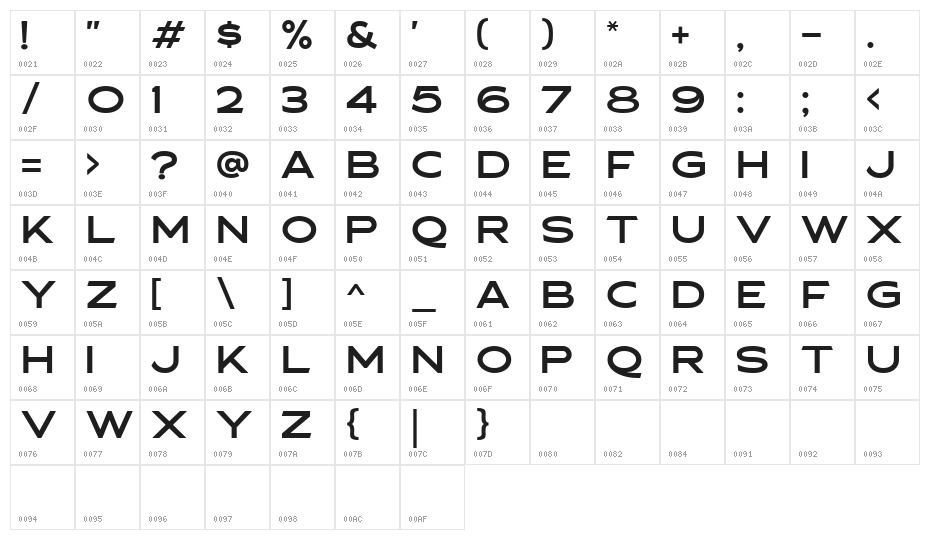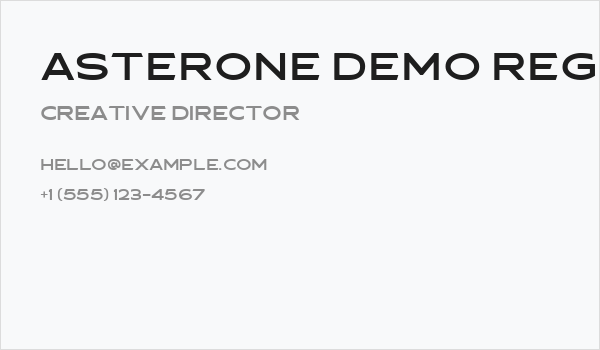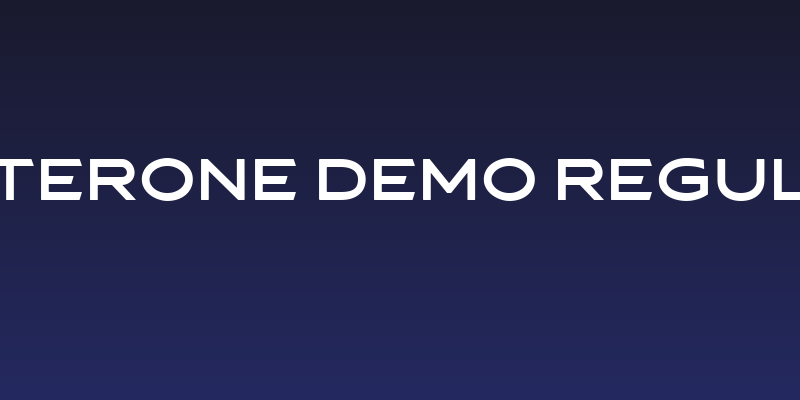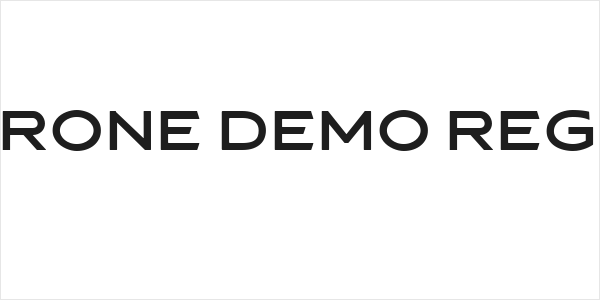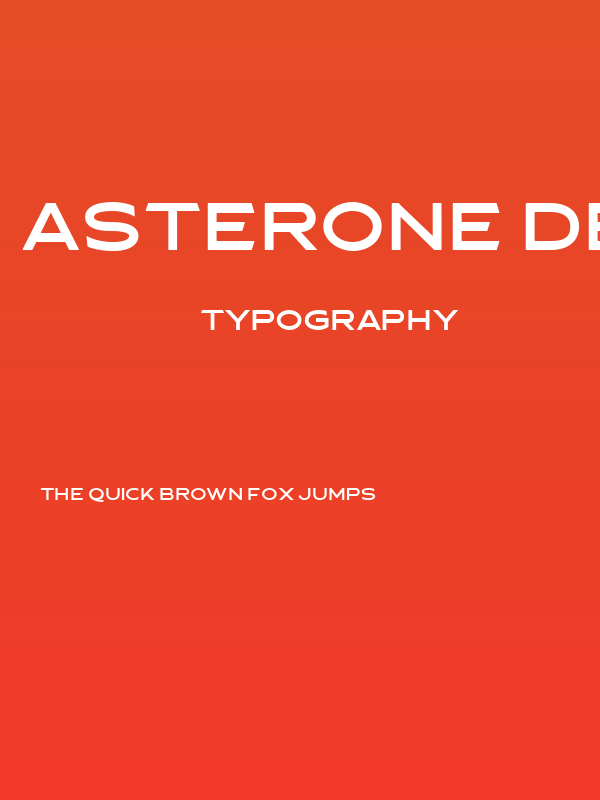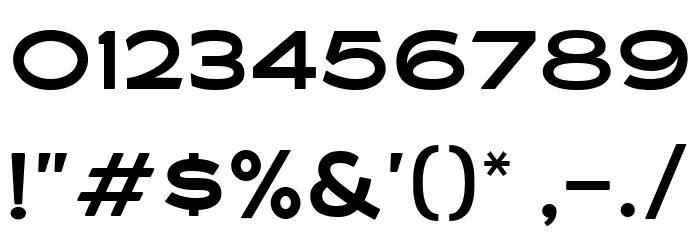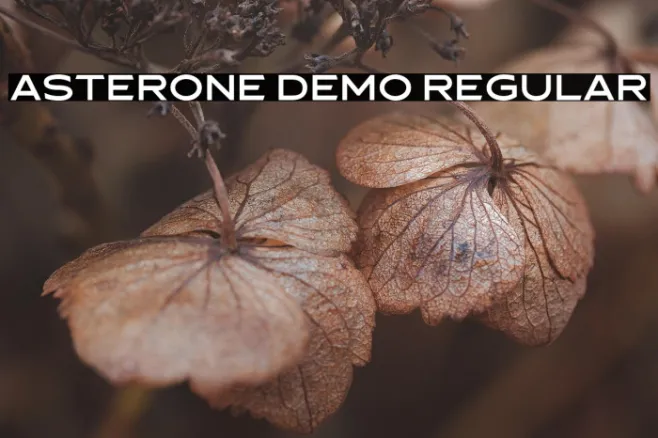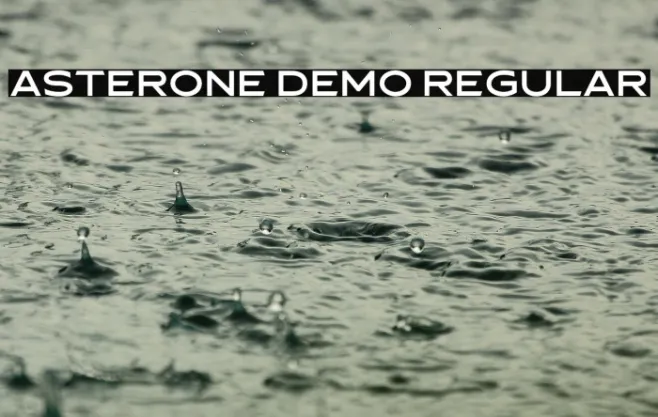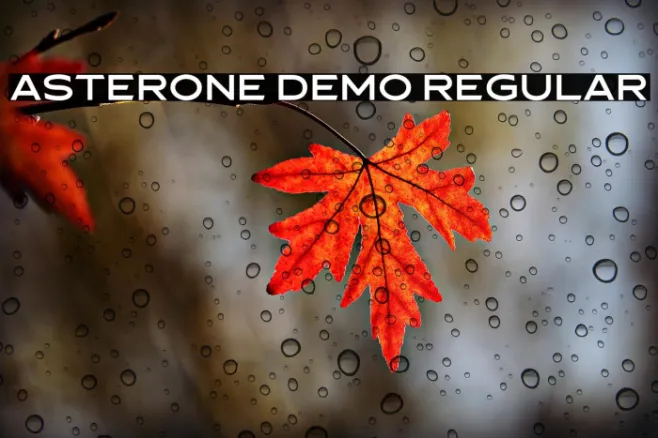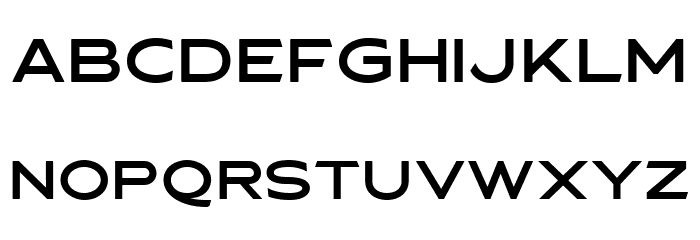
Asterone DEMO Regular Font
Asterone DEMO Regular Description
This font exhibits a modern and sleek design, characterized by clean lines and a geometric structure. The uppercase letters are bold and assertive, with a uniform stroke width that conveys a sense of stability and strength. The lowercase letters maintain the same geometric precision, offering a harmonious balance between the two cases. The numerals are clear and legible, designed to complement the overall style. Special characters are crafted with the same attention to detail, ensuring consistency throughout. This font is versatile, suitable for both digital and print media, and can be used effectively in a variety of design contexts.